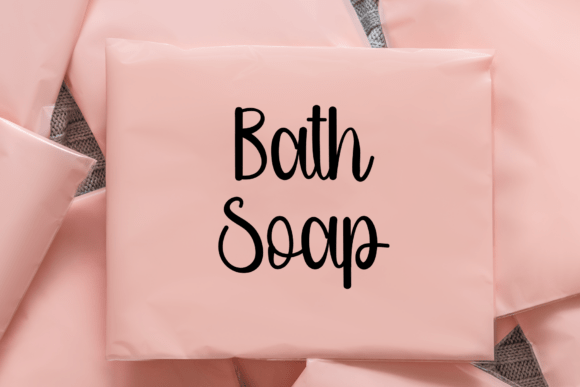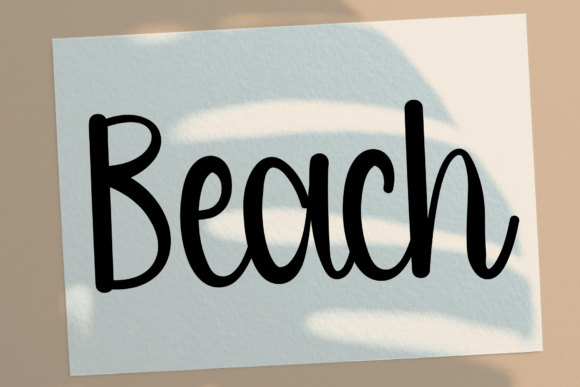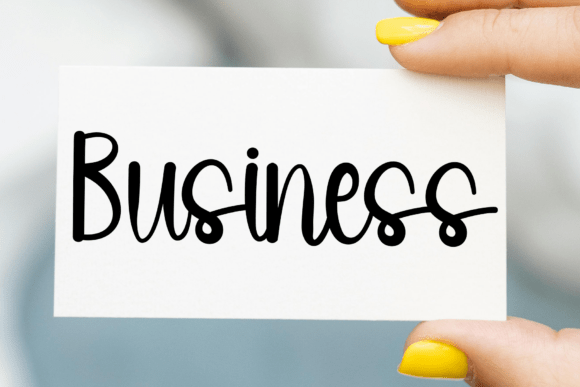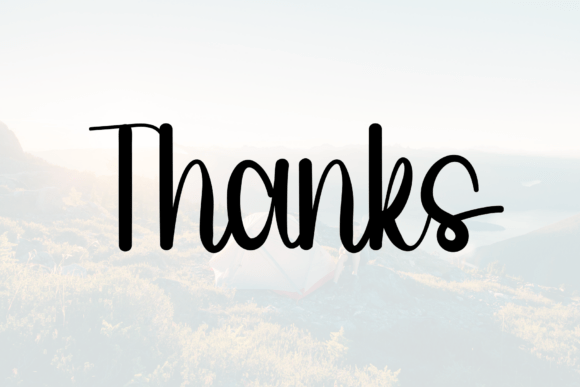
Camping Newyear Font has quickly become one of my go-to fonts for a variety of design projects. Here’s what I love about it:
- ✨ Relaxed and sporty feel: This font has a unique, laid-back vibe that’s perfect for designs that need a casual touch.
- ✅ Elegant yet casual: Camping Newyear Font strikes the perfect balance between luxury and approachability, making it suitable for a wide range of projects.
- 🎉 Versatile: From branding and logos to wedding supplies, greeting cards, and marketing promotions, this font can be used in various design contexts.
Honest Review: The Not-So-Perfect Font
While Camping Newyear Font is an excellent choice for many designs, it’s not without its quirks:
- 🤔 Limited serif variations: If you’re looking for a font with multiple serif options, Camping Newyear might not be the best fit.
- ⚠️ Occasional kerning issues: As with any font, you might encounter some kerning issues, especially when using it in combination with other fonts.
The Story Behind Camping Newyear Font
Camping Newyear Font was created with the intention of capturing the essence of a handwritten font that’s both elegant and casual. The designer aimed to create a font that would be perfect for designs that need a relaxed yet sophisticated touch. The result is a beautiful, marker-drawn font that’s perfect for a wide range of design projects.
| Author | Berkah Shop |
| What type of designs is Camping Newyear Font best suited for? | Camping Newyear Font is perfect for designs that need a relaxed yet elegant touch, such as branding, logos, wedding supplies, greeting cards, and marketing promotions. |
| Is Camping Newyear Font suitable for body text? | While Camping Newyear Font is beautiful, it’s best used for headlines and titles. For body text, you may want to choose a font with better legibility. |